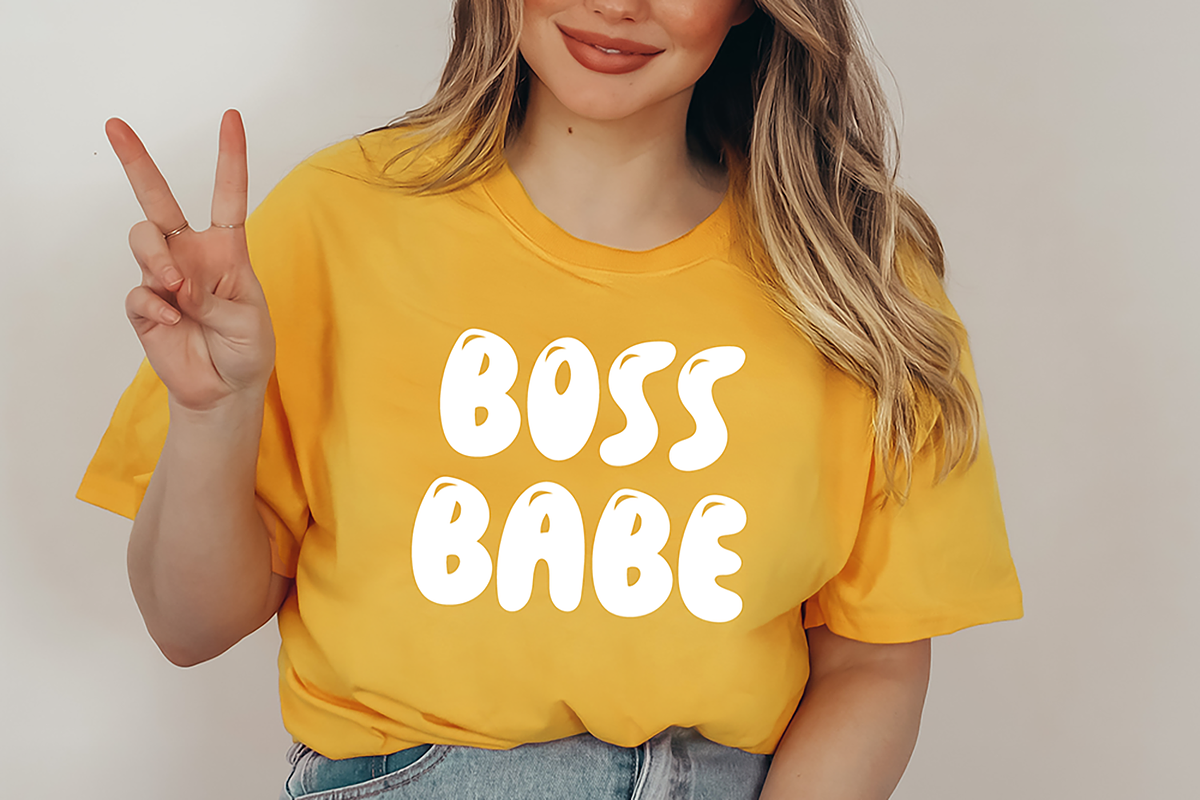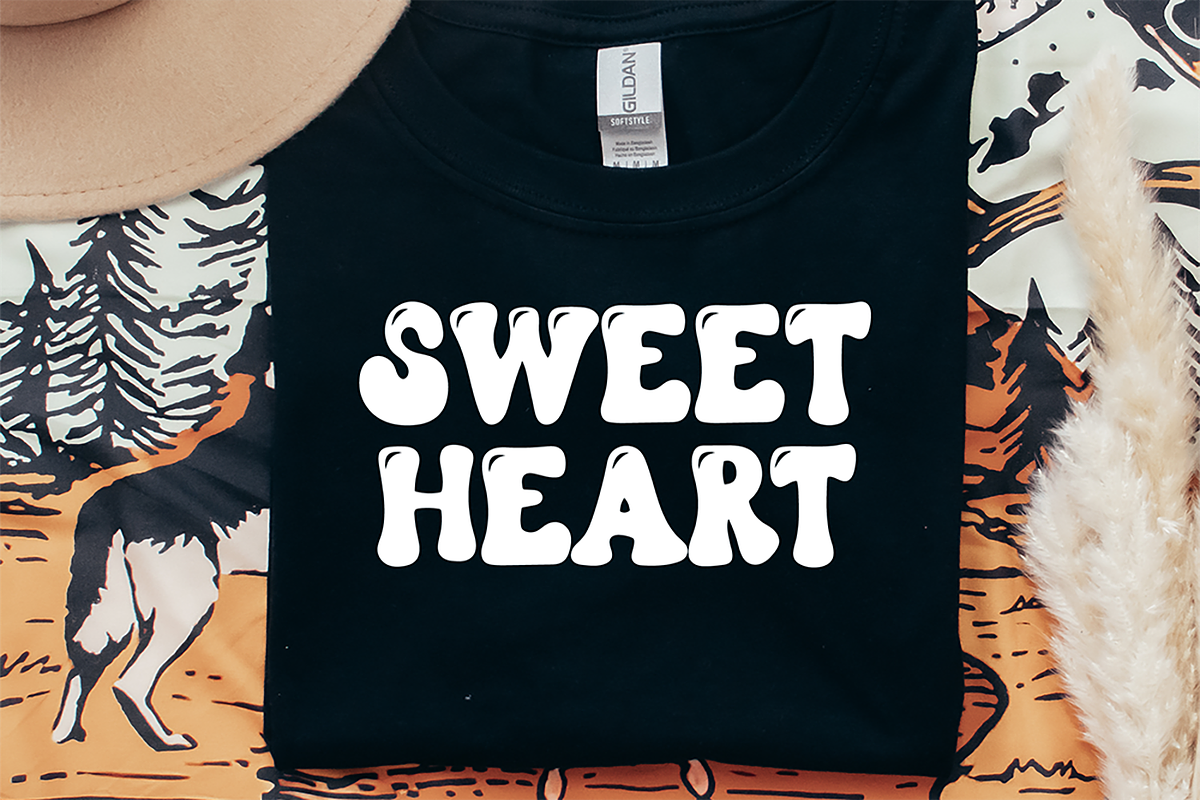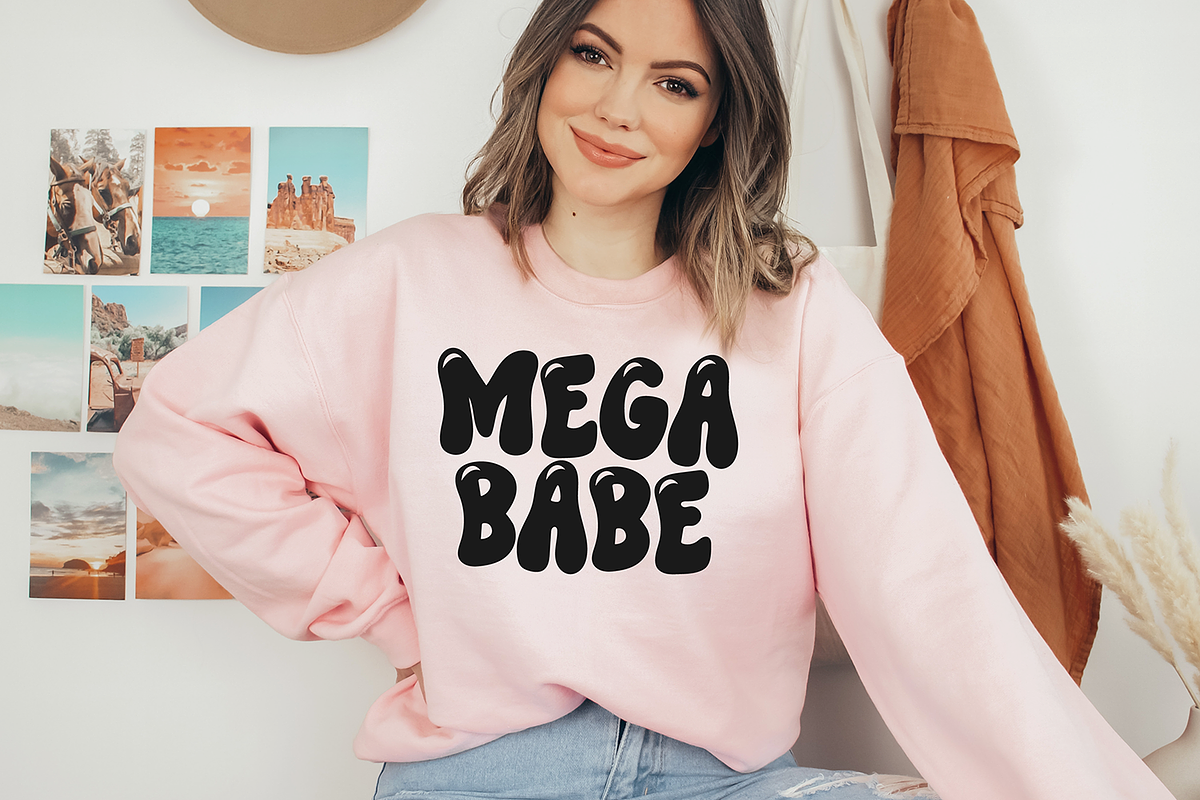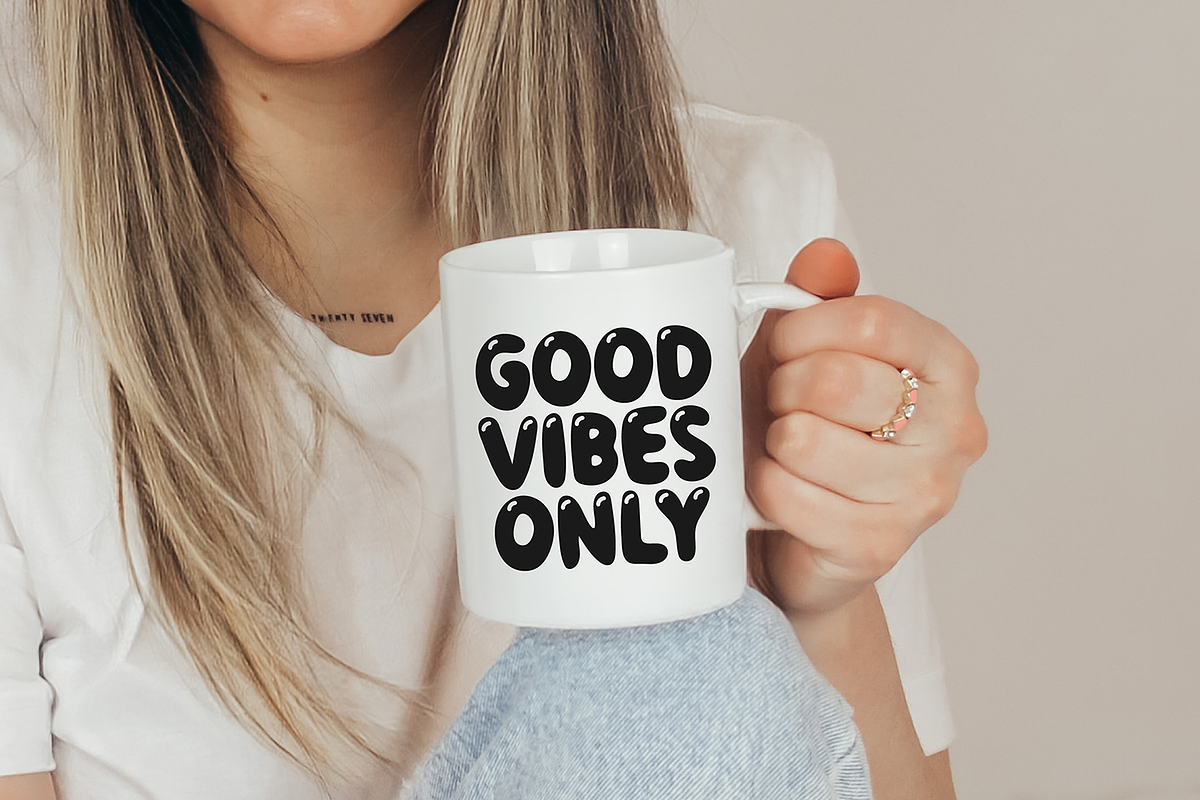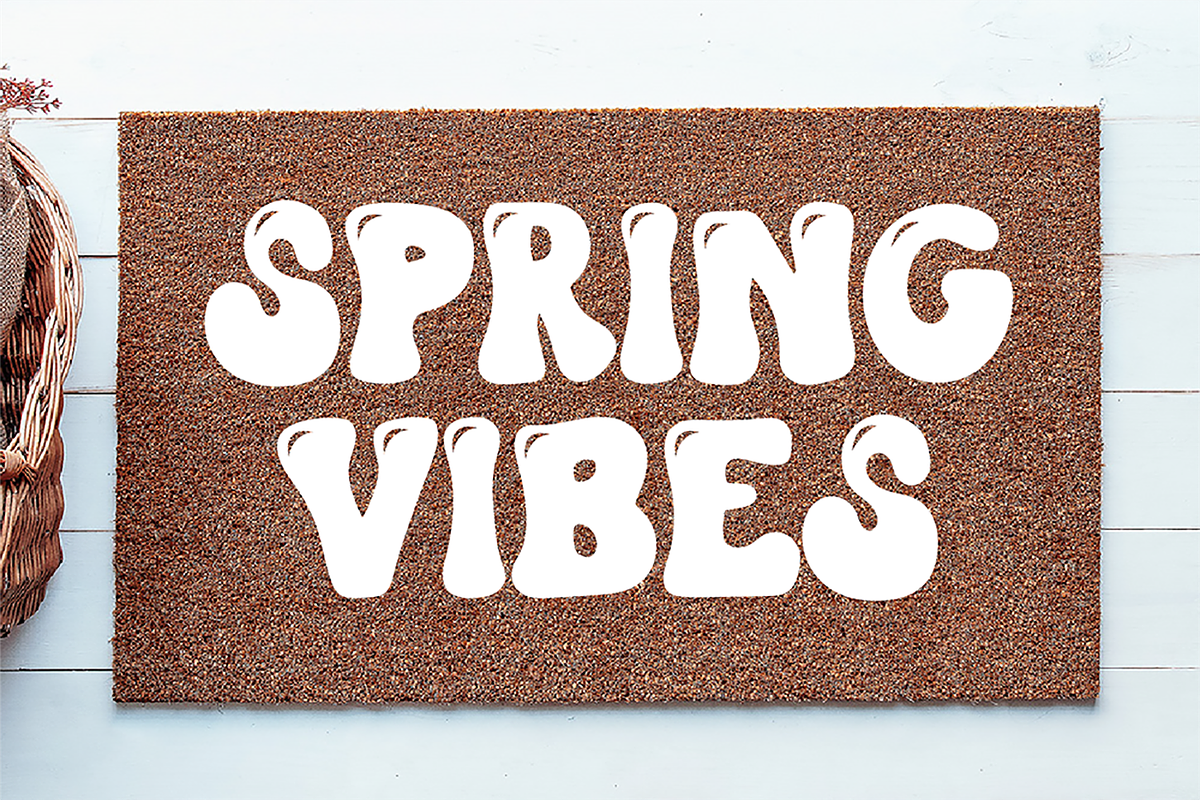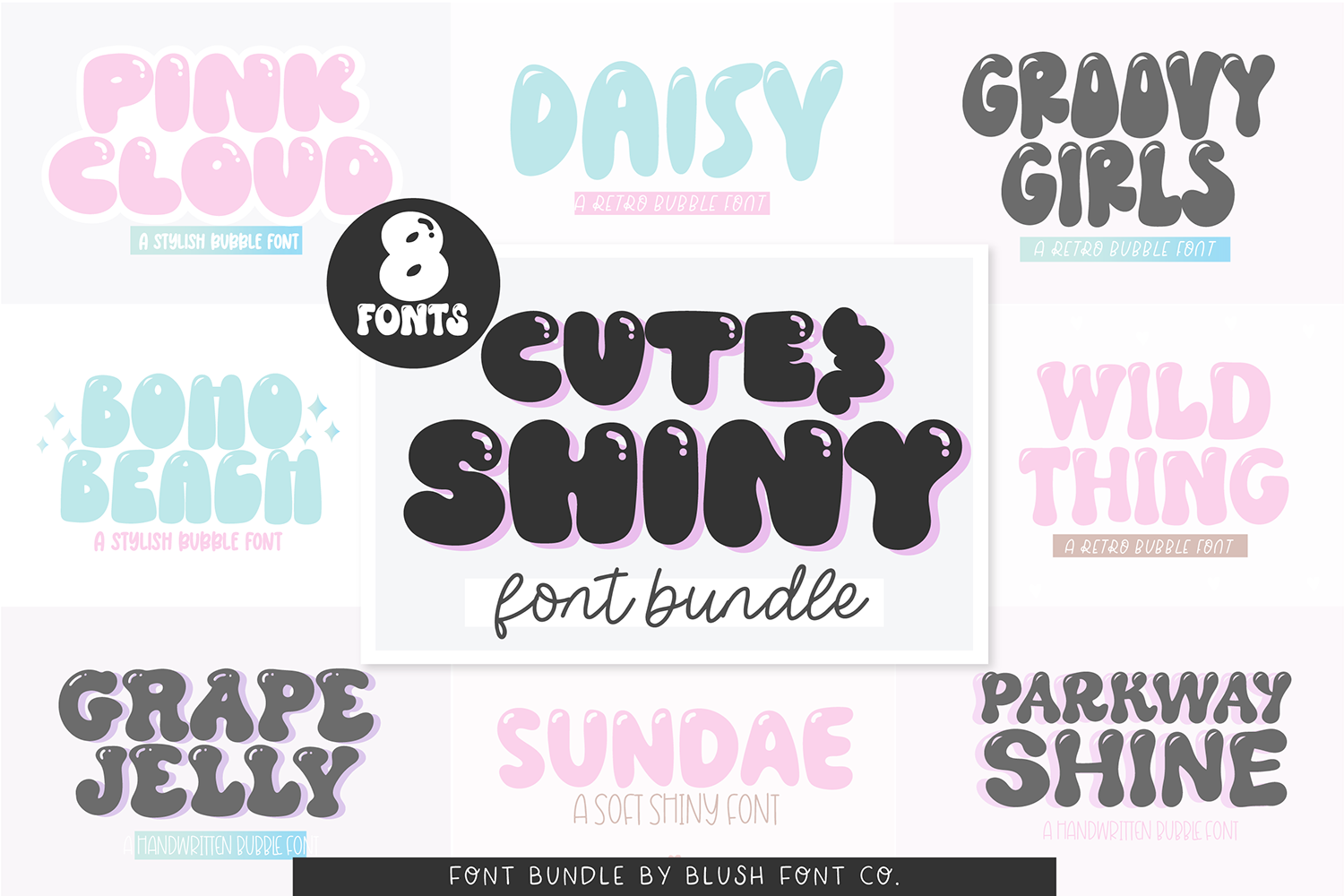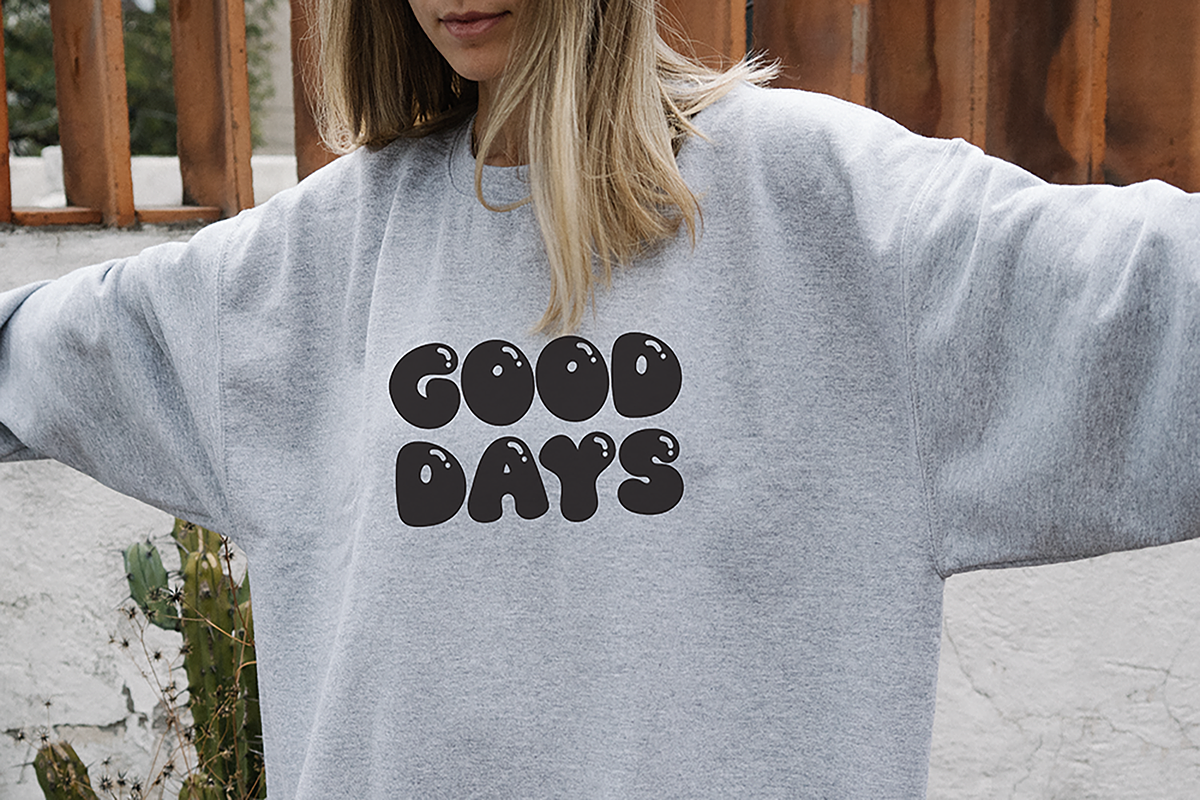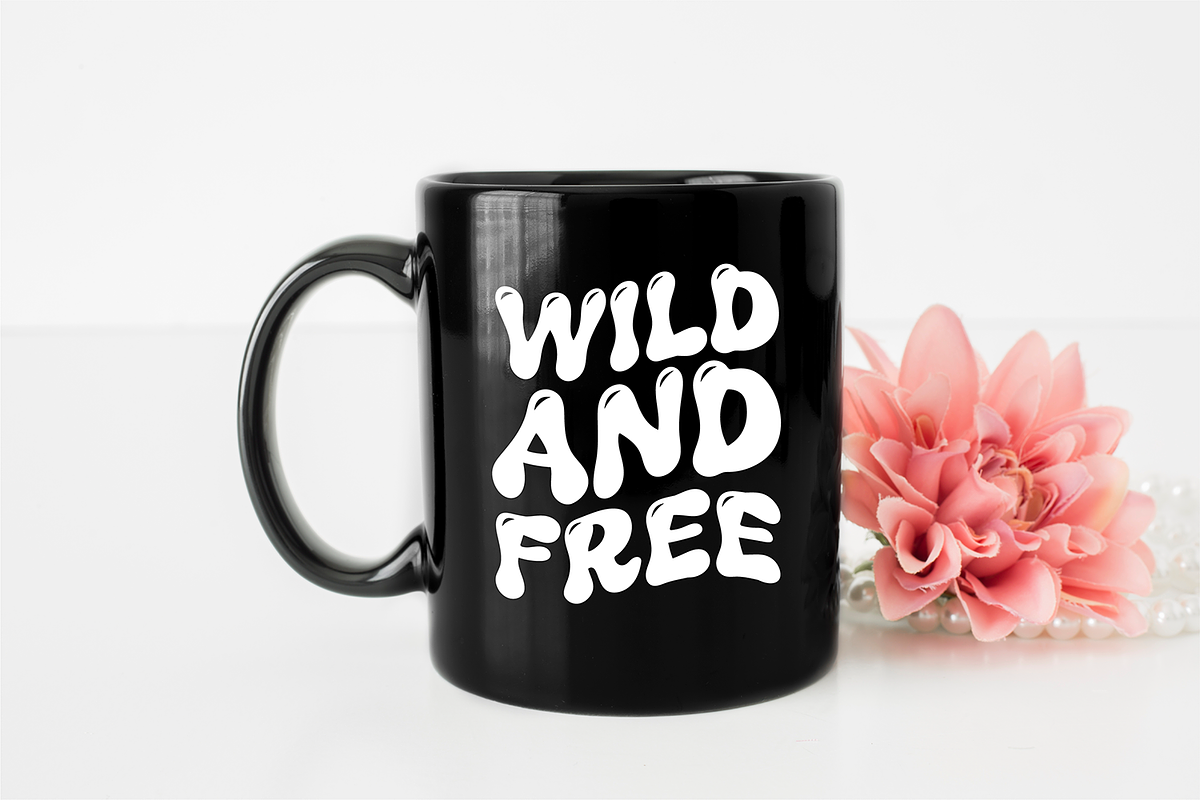
CUTE AND SHINY Retro Font Bundle
CUTE AND SHINY FONT BUNDLE
This font bundle is full of style! These retro bubble fonts are perfect for procreate, t-shirt design, birthday parties, procreate, and more!